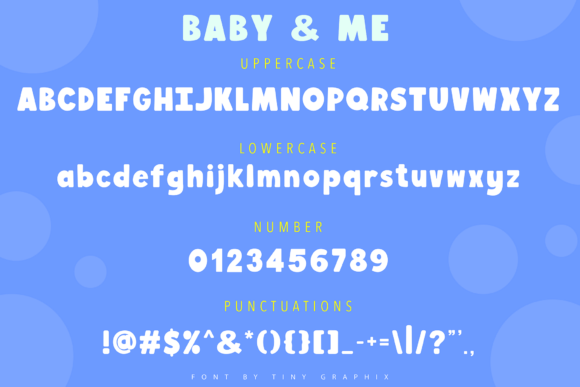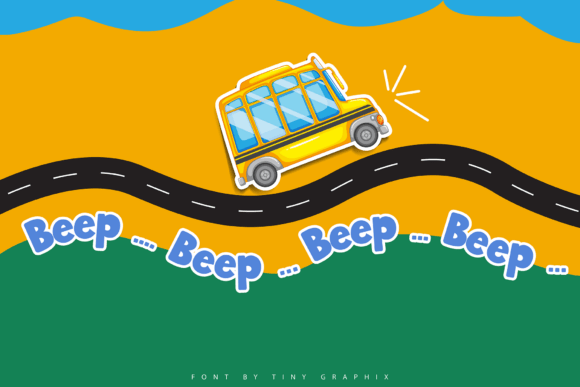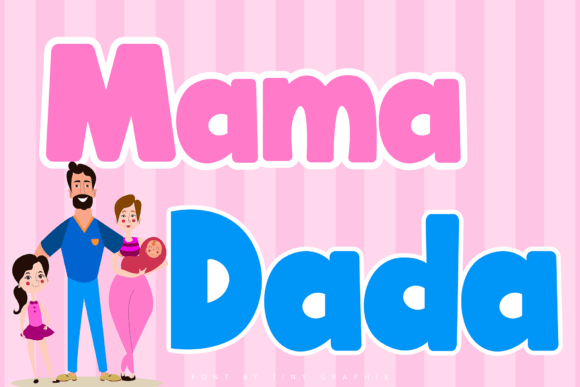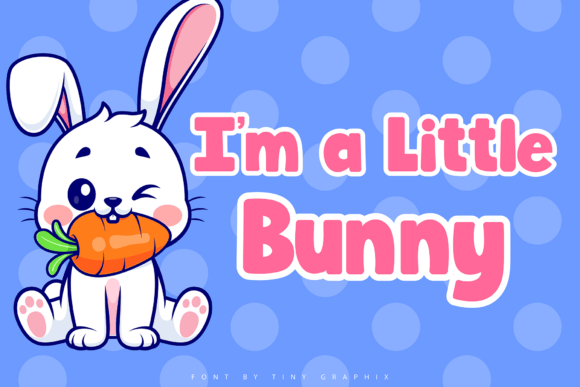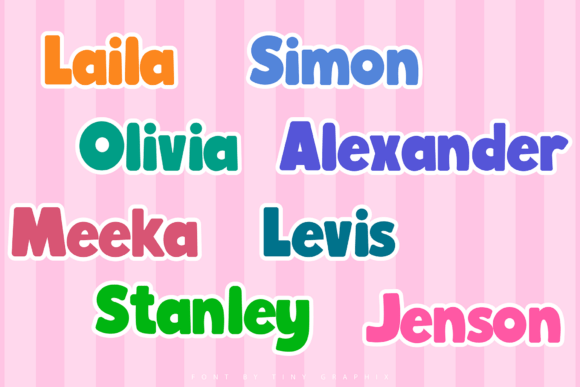
✨ Baby & Me Font – Fun and Cute Display Typeface for Creative Projects ✨
Are you looking for a font that can add a touch of charm and playfulness to your designs? Look no further than the Baby & Me Font, a bold and adorable display typeface crafted by Tiny Graphix. This delightful font is perfect for a wide range of creative projects, from kids’ materials and birthday invitations to baby shower cards and classroom resources.
What Makes Baby & Me Font So Special?
The Baby & Me Font is designed to bring joy and whimsy to your designs. Its rounded edges, fun shapes, and soft readability make it an ideal choice for teachers, parents, crafters, and designers who want to create engaging and visually appealing content. Whether you’re working on a project for kids or adults, this font is sure to add a playful touch that will capture attention and spread happiness.
Key Features of Baby & Me Font
The Baby & Me Font comes with a range of features that make it versatile and easy to use across all design platforms. Some of its key features include:
- ✅ Includes uppercase, lowercase, numbers, and punctuation, providing everything you need to create professional-looking designs.
Use Baby & Me Font for a Wide Range of Projects
The Baby & Me Font is incredibly versatile and can be used for a wide range of creative projects, including:
- Kids’ projects: Create engaging and fun materials for kids, such as worksheets, activity sheets, and educational resources.
- Birthday invitations: Add a playful touch to your birthday invitations and make them truly special.
- Baby shower cards: Create adorable and memorable cards for baby showers and other celebrations.
- Classroom materials: Use the Baby & Me Font to create engaging and interactive classroom materials, such as posters, charts, and worksheets.
- Logos and branding: Add a touch of whimsy to your logos and branding materials, making them stand out and memorable.
- Posters and quotes: Create eye-catching posters and quotes that inspire and motivate.
Why Choose Baby & Me Font?